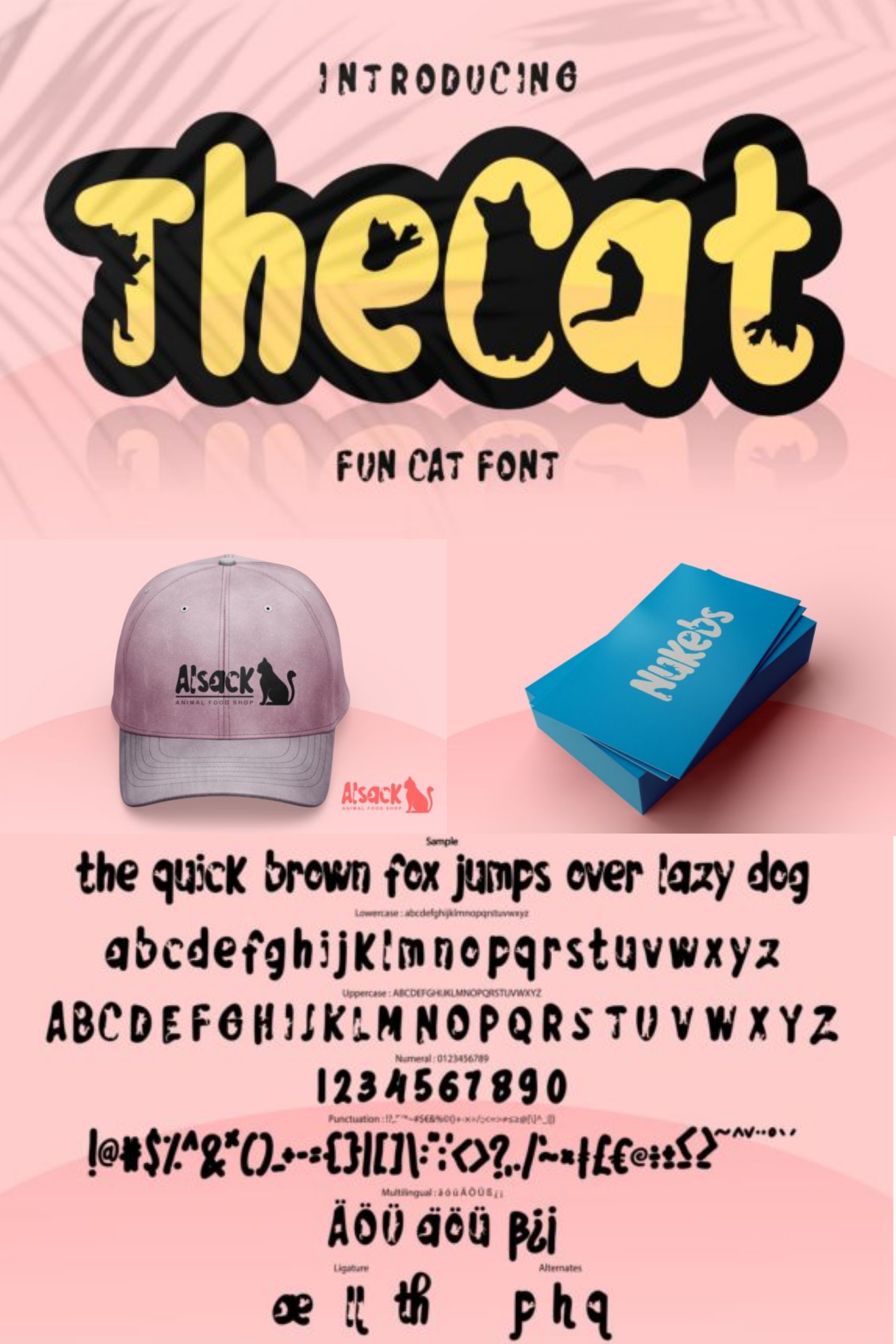
Cat-themed fonts are popping up everywhere, from adorable Instagram posts to eye-catching pet brand logos, and it's no wonder! This playful font style has quickly become a favorite among designers and cat lovers alike. Whether you’re working on a branding project for a pet business, adding a personal touch to your DIY crafts, or simply looking to infuse some feline fun into your designs, a cat-inspired font could be just what you need.
In this post, we’ve rounded up the best cat fonts for everyone: graphic designers, pet brands, e-commerce store owners, bloggers, event planners, and, of course, cat lovers. Get ready to purrfectly elevate your designs with these charming and versatile fonts!
Before we jump into the list fonts, let’s quickly cover why cat fonts are such a great choice for so many projects:
Graphic Designers & Illustrators: A cat-themed font adds playfulness and personality, ideal for projects that call for a bit of whimsy.
Pet Brands & Businesses: Fonts with a feline flair instantly attract cat lovers and help create a friendly, memorable brand.
Cat Lovers & DIY Enthusiasts: If you’re personalizing projects like cards or decor, cat fonts bring a unique, personal touch.
E-commerce Store Owners: Cat fonts on merchandise like T-shirts, mugs, or stickers make products stand out to a niche market.
Bloggers & Social Media Influencers: Using themed fonts in posts or stories creates engaging visuals that resonate with your followers.
Event Planners: Cat fonts are perfect for themed events like cat adoption days, birthdays, or fundraisers, making invites and signage more eye-catching.
Here's a roundup of some of the best cat fonts out there. Each one has its own personality, so you’re sure to find a match for your next project!
Cat Character is a playful and adorable font featuring various cat poses within each letter, giving it a unique and fun appearance. Each uppercase letter has its own cat-themed design, perfect for adding a touch of personality to your text.
Ideal for children's products, pet store branding, social media graphics, and event invitations related to cat-themed occasions.
Pairs well with clean sans-serif fonts to balance out its playful nature, like Helvetica or Montserrat, allowing the cat characters to shine.
Caturday is an adorable, decorative font where each letter features a cute cat face, adding a playful touch to any text. It’s a perfect font for projects that need a whimsical or cozy vibe, making it a delightful choice for cat lovers.
This font shines in children's products, social media posts, event invitations, or any design with a pet-friendly theme.
Complements well with clean sans-serif fonts like Lato or Poppins, which can balance out its decorative elements and keep your design easy to read.
Cat Lover is a bold, decorative font that incorporates charming cat faces and paw prints into each letter. This playful font adds personality to your designs, making it a great choice for any project with a fun, feline theme.
Perfect for pet-themed events, children’s products, greeting cards, or any design that calls for a cute and bold look.
Pairs well with simple sans-serif fonts like Arial or Montserrat for contrast and readability.
Cute Cat is a playful display font that creatively integrates cat silhouettes into each letter, adding a unique and adorable feline touch. This font is perfect for designs that require a bold yet charming look, particularly for pet-related products, children’s items, or fun branding projects.
Ideal for logos, packaging, posters, and social media graphics with a lighthearted, animal-themed aesthetic.
Works well with simple, sans-serif fonts like Open Sans or Lato for a balanced design.
Cat Round Eyed is a delightful and whimsical display font where each letter is shaped like a playful cat with wide, round eyes. This unique typeface combines fun and charm, making it ideal for any cat-themed or children-oriented design. The rounded letters add a friendly, inviting tone to any project.
Perfect for children’s book covers, pet product branding, playful logos, and any design that needs a touch of cuteness.
Pairs well with minimalist sans-serif fonts like Montserrat or Roboto to let its playful details stand out.
Cattie is an undeniably cute and whimsical decorative font that playfully integrates feline elements into its letterforms. Notice how the uppercase 'C' features a charming cat head silhouette, complete with ears and whiskers! Throughout the font, you'll find subtle nods to our furry friends, adding a touch of lightheartedness to your text. The rounded edges and soft curves contribute to its friendly and approachable feel.
Ideal for: Children's designs, pet-related businesses, social media graphics, greeting cards, and any project aiming for a sweet and playful aesthetic.